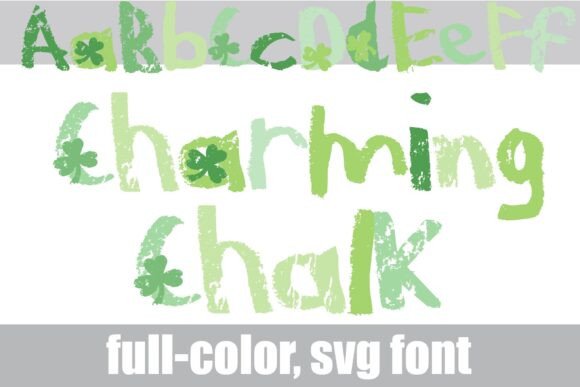
Introducing the Charming Chalk Font: A Vibrant and Versatile Addition to Your Design Arsenal
In the world of typography, few fonts manage to capture the essence of playfulness and creativity as effectively as the Charming Chalk Font. This delightful full-color font, with its green chalk-like appearance, is sure to add a touch of personality to your designs. Whether you’re working on titles, displays, posters, or any other project that requires a bit of whimsy, this font is an excellent choice. In this article, we’ll explore the features and benefits of the Charming Chalk Font, as well as provide guidance on how to install and use it.
A Closer Look at the Charming Chalk Font
The Charming Chalk Font is a unique and eye-catching typeface that mimics the look of green chalk. Its full-color design makes it perfect for creating visually striking text elements that are sure to grab attention. But what really sets this font apart is its versatility. Not only does it come in a standard green color, but it also includes an alt version that can be accessed through your system’s character map. This alt version contains additional colors for all the letters, giving you a wide range of creative possibilities.
Key Features of the Charming Chalk Font
- Full-color design: The Charming Chalk Font features a vibrant green chalk-like design that’s sure to add a pop of color to your designs.
- Alt version with additional colors: The font includes an alt version with additional colors for all the letters, giving you even more creative options.
- OpenType full-color (SVG) font: The Charming Chalk Font is an OpenType full-color (SVG) font, which means it can be scaled to any size without losing quality.
Benefits of Using the Charming Chalk Font
The Charming Chalk Font offers a range of benefits for designers and crafters. Its unique and playful design makes it perfect for adding a touch of personality to your projects. Here are just a few reasons why you might want to consider using this font:
Adding Personality to Your Designs
With the Charming Chalk Font, you can add a touch of whimsy and creativity to your designs. Its full-color design and playful appearance make it perfect for projects that require a bit of fun and personality.
- Create eye-catching text elements: The Charming Chalk Font is sure to grab attention with its vibrant green color and playful design.
- Add a touch of personality to your designs: This font is perfect for designers who want to add a bit of whimsy and creativity to their projects.
- Perfect for titles, displays, and posters: The Charming Chalk Font is ideal for creating visually striking text elements for titles, displays, and posters.
The Advantages of Full-Color SVG Fonts
The Charming Chalk Font is a full-color SVG font, which means it offers a range of advantages over traditional fonts. Here are just a few benefits of using full-color SVG fonts:
- Scalability: Full-color SVG fonts can be scaled to any size without losing quality.
- Vector-based: SVG fonts are vector-based, making them perfect for creating high-quality designs.
- Wide range of creative possibilities: With a full range of colors and styles to choose from, you can create anything from simple text logos to complex illustrations.
| Font Name | Charming Chalk Font |
| Author | Illustration Ink |
The Charming Chalk Font is a vibrant and versatile addition to any design arsenal. Its unique and playful design, combined with its full-color capabilities and wide range of creative possibilities, make it perfect for designers and crafters who want to add a touch of personality to their projects. Whether you’re working on titles, displays, posters, or any other project that requires a bit of whimsy, this font is an excellent choice.
With its compatibility with a wide range of design software, including Silhouette Studio, Adobe products, Quark, and Inkscape, you can easily incorporate the Charming Chalk Font into your workflow. So why not give it a try and see how it can add a touch of charm and personality to your designs?